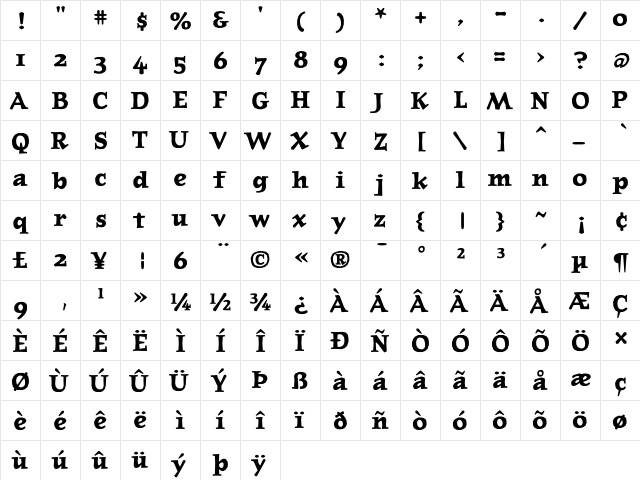
JournalBoldOldstyle Regular
Design Context for JournalBoldOldstyle Typeface
JournalBoldOldstyle brings classic typographic sensibility to the table — its serifs and measured letterforms reflect centuries of print heritage. Its bold stroke weight gives it real presence on the page.
Pro Tip: Use JournalBoldOldstyle for editorial body copy and considered headline work. Pair with a neutral sans for UI elements or captions to create a classic hierarchy.